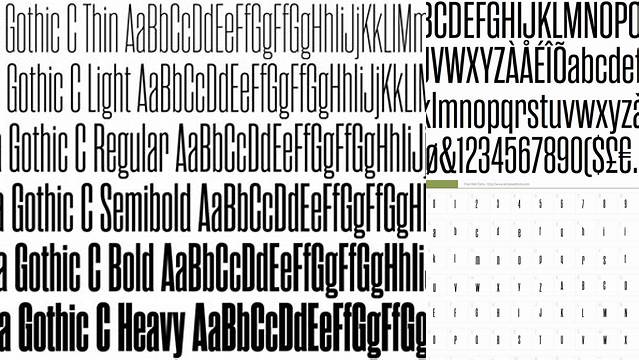
Rama Gothic Semibold Font: Free Download & Creative Uses
Rama Gothic Semibold Font: Your Guide to a Free Download and Creative Uses
Hey guys! Are you on the hunt for a cool font that can make your designs pop? Look no further because we're diving headfirst into the world of Rama Gothic Semibold, a font that's both stylish and super versatile. And the best part? We'll show you how to snag a free download and explore all the awesome ways you can use it. Get ready to unleash your creativity! This comprehensive guide will cover everything you need to know about this fantastic font, from its distinctive features to where you can find it, and how to best use it for your projects. We'll also touch on the legal stuff, making sure you're all set to use Rama Gothic Semibold without any worries. So, let's jump right in and discover why this font is becoming a favorite among designers and creatives everywhere. Ready? Let's go!
What Makes Rama Gothic Semibold So Special?
So, what's the deal with Rama Gothic Semibold? Well, it's a font that really stands out. Imagine a font that's got a touch of the gothic style, but it's also clean, modern, and super easy to read. That's Rama Gothic Semibold in a nutshell. It's got a unique vibe that's perfect for making a statement, whether you're working on a website, a poster, or a logo. The semibold weight gives it just the right amount of boldness, making it eye-catching without being overwhelming. Think of it as the Goldilocks of fonts – not too thick, not too thin, but just right. The design of the letters is crisp and clear, ensuring that your message is communicated effectively. It's a fantastic choice for headlines and headings, but it also works well in body text, especially when you want to add a touch of personality to your content. This font brings a level of sophistication and readability that can elevate any design. It’s a great option for anyone looking to make their text stand out from the crowd, offering a perfect blend of style and functionality. The versatility of Rama Gothic Semibold allows it to fit seamlessly into a variety of design projects, providing a consistent and professional look.
One of the things that makes Rama Gothic Semibold so special is its ability to adapt to different contexts. It looks great in both digital and print formats, which means you can use it for a wide range of projects without having to worry about how it will translate. Whether you're designing a sleek website header, creating marketing materials, or crafting an engaging social media post, this font has you covered. Its versatility extends beyond just the medium; it also complements various design aesthetics. From minimalist designs to more elaborate layouts, Rama Gothic Semibold fits right in. This adaptability makes it a valuable asset in any designer's toolkit. The careful design of the font ensures that it maintains its visual appeal regardless of its use. It’s crafted to be legible at different sizes, making it perfect for everything from large headlines to smaller body text. The overall effect is a font that is both functional and stylish, making it a great choice for designers of all levels.
Creative Ways to Use Rama Gothic Semibold in Your Projects
Alright, now that you've got the font, let's talk about the fun part: how to use it! Rama Gothic Semibold is incredibly versatile, making it a great choice for all sorts of projects. Here are some cool ideas: Use it for website headlines and subheadings. It's bold enough to grab attention but still easy to read. Think about using it for posters and flyers, especially for events or announcements that need to make a strong visual impact. Create striking social media graphics to give your posts a distinctive look that will make you stand out from the crowd. Design logos and branding materials that give your brand a modern, sophisticated vibe. Rama Gothic Semibold is a fantastic option for any design that requires a touch of elegance. Make your presentations and documents more engaging and visually appealing. You can even use it for creating custom invitations and greeting cards, giving them a unique and personalized touch.
The beauty of this font lies in its adaptability. It's perfect for both digital and print media. Imagine it on your website's homepage, setting the tone for your brand. Picture it on a poster for an event, clearly communicating the essential details. Think about it on social media, attracting attention and driving engagement. The possibilities are truly endless. When using Rama Gothic Semibold, consider the overall tone and style of your project. Its clean lines and modern aesthetic make it ideal for contemporary designs. However, it can also work well in more traditional contexts, adding a touch of sophistication. Experiment with different font sizes, weights, and colors to find the perfect combination for your project. The semibold weight provides a good balance, allowing you to create headlines that are eye-catching without being overwhelming. Consider pairing Rama Gothic Semibold with other fonts to create a more dynamic and interesting design. For example, you could use a more delicate font for body text to provide contrast. This versatility makes it a valuable tool in any designer's arsenal.
Tips for Making the Most of Your Rama Gothic Semibold Font
Ready to put Rama Gothic Semibold to work? Here are a few tips to help you make the most of this awesome font. First off, experiment with different sizes and weights. The semibold weight is great, but you can also try other weights (if available) to see what works best for your design. Play around with the kerning (the space between letters) and leading (the space between lines) to create a visually appealing layout. Don't be afraid to mix and match with other fonts. Pairing Rama Gothic Semibold with a contrasting font can create an interesting and dynamic look. Consider the background of your design. Make sure the font color has enough contrast so your text is easy to read. Remember, the goal is to create something that's both visually appealing and easy to understand. The font is just one piece of the puzzle, so think about the overall composition, including images, colors, and layout. This font is versatile, but it is not a magic bullet. You still need to make sure you are following good design principles. Good design principles will ensure you are using the font effectively. Focus on how the text conveys your message. Consider your target audience and the purpose of your design. The font can enhance the message, but it is not the message itself.
So there you have it, guys! Everything you need to know about Rama Gothic Semibold. It's a fantastic font that's versatile, stylish, and often available for free download. Remember to always check the license, experiment with different uses, and have fun creating. We hope this guide helps you make your designs even more awesome. Happy designing! Make sure you take advantage of all the tips and advice shared in this guide. Remember that using Rama Gothic Semibold is a great way to add personality and style to your projects. Get out there and create some amazing designs!